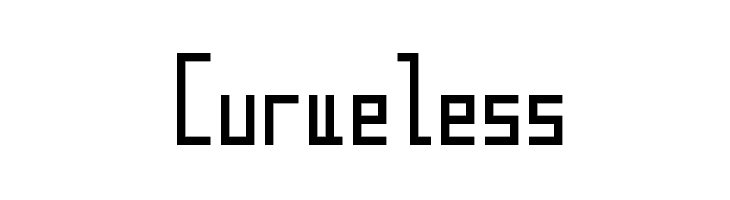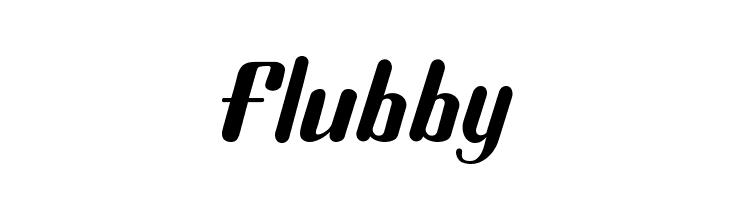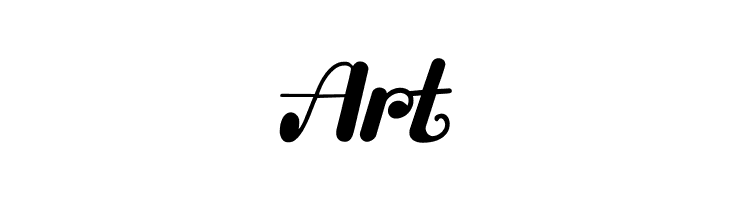
A lively handwritten font with fluid, cursive strokes and a modern, playful style.
A lively, cursive font with a natural handwritten style.
A lively and dynamic script font with fluid, cursive letterforms.
A monospaced, pixelated font with a retro digital aesthetic.
A distinctive serif font combining sharp angles and subtle curves for a classic yet modern look.
A bold, playful script font with high contrast and decorative swashes.
A sophisticated serif font with elegant lines and subtle curves.
A decorative Gothic-style font with intricate, angular strokes and elaborate serifs.